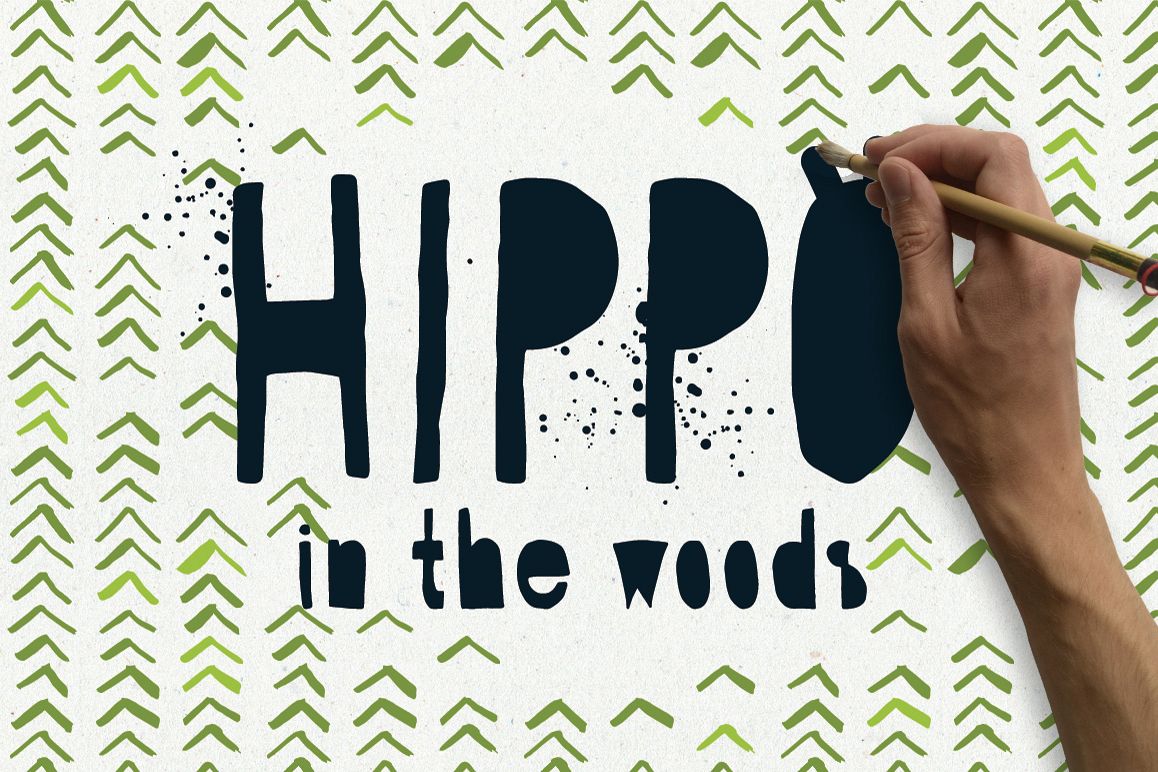
Hippo in the Woods - Organic Font
Can you find the hippo hidden deep in the forest? With this font you will be able to! It's an artistic font inspired by wild nature. Perfect for greeting cards, posters, book illustrations or anywhere where unique natural look needed.
I wanted to create something inspiring with no limits in terms of creativity. So I sat down and after couple of tries I draw this. Now sharing with you.
Include all characters you will need for communication in English. But, no alternates or fereigh alphabets currently supported.